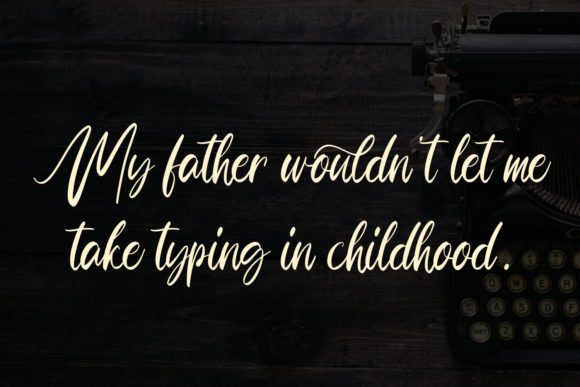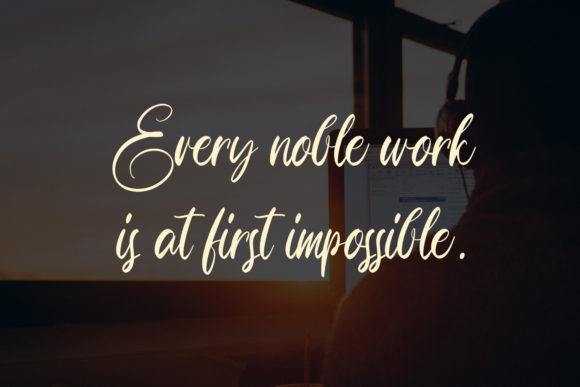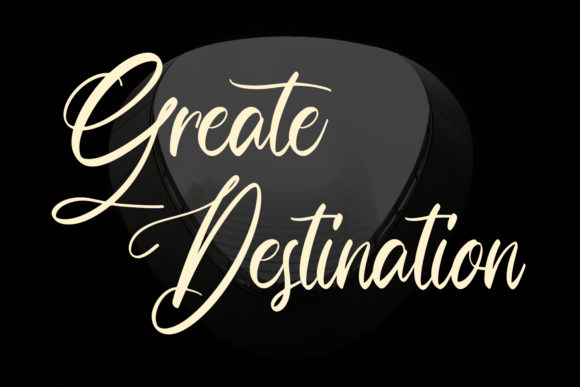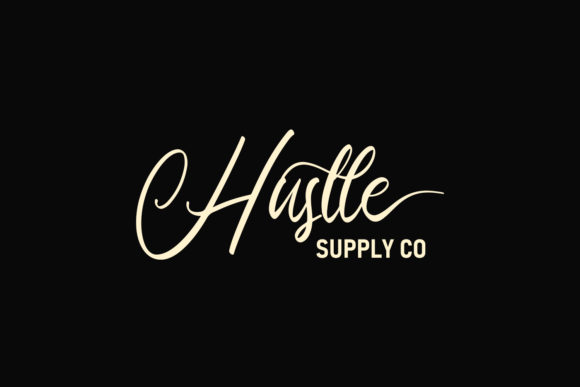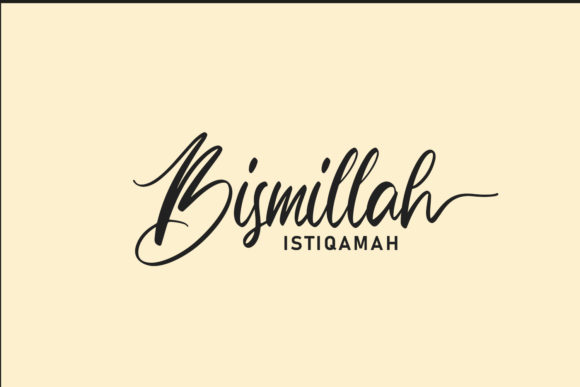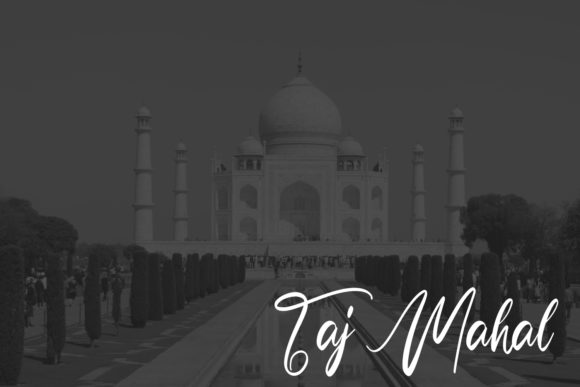
Discover the Charm of Anthropology Font: A Friendly and Versatile Handwritten Script
Are you a designer, crafter, or DIY enthusiast looking for a font that can add a touch of warmth and personality to your creative projects? Look no further than Anthropology Font, a beautiful and casual handwritten script that is sure to delight. With its incredibly friendly feel, gorgeous swashes, and ligatures, this font is perfect for a wide range of applications, from Instagram posts to calligraphy scripts and more.
What Makes Anthropology Font So Special?
Anthropology Font is a truly unique and versatile script that offers a range of features that set it apart from other fonts. Here are just a few of the things that make it so special:
- Incredibly Friendly Feel: From the first glance, it’s clear that Anthropology Font is a font that is designed to be approachable and warm. Its casual, handwritten style makes it perfect for projects where you want to convey a sense of friendliness and approachability.
- Gorgeous Swashes and Ligatures: One of the standout features of Anthropology Font is its beautiful swashes and ligatures. These elegant flourishes add a touch of sophistication and elegance to any project, making it perfect for designers and crafters who want to add a little extra something special to their work.
- Versatile and Adaptable: Whether you’re designing a social media post, a DIY project, or a professional marketing campaign, Anthropology Font is a versatile script that can adapt to any style or theme. Its flexibility makes it a great choice for a wide range of applications.
Anthropology Font is a dream come true for designers and crafters who are looking for a font that can help them add a personal touch to their projects. Here are just a few ways that this font can be used:
- Instagram and Social Media: With its friendly and approachable style, Anthropology Font is perfect for Instagram posts, Facebook updates, and other social media projects. Use it to add a personal touch to your social media presence and make your posts stand out.
- Calligraphy and Hand Lettering: If you’re a fan of calligraphy or hand lettering, Anthropology Font is a great choice. Its beautiful swashes and ligatures make it perfect for creating elegant and sophisticated lettering pieces.
- DIY Projects: Whether you’re making cards, gift tags, or other DIY projects, Anthropology Font is a great choice. Its friendly and approachable style makes it perfect for adding a personal touch to your handmade creations.
Tips for Using Anthropology Font
Here are a few tips for getting the most out of Anthropology Font:
- Experiment with Swashes and Ligatures: One of the best things about Anthropology Font is its gorgeous swashes and ligatures. Experiment with different combinations to find the look that works best for your project.
- Mix and Match with Other Fonts: Anthropology Font is a versatile script that can be paired with a wide range of other fonts. Try mixing and matching it with different fonts to create a unique and interesting look.
- Use it for Headlines and Titles: Anthropology Font is perfect for headlines and titles, where its elegant and sophisticated style can really shine.
In conclusion, Anthropology Font is a beautiful and versatile handwritten script that is perfect for designers, crafters, and DIY enthusiasts. With its incredibly friendly feel, gorgeous swashes and ligatures, and adaptable style, it’s a font that can be used for a wide range of applications. Whether you’re looking for a font for Instagram, calligraphy scripts, or DIY projects, Anthropology Font is a great choice. So why not give it a try and see what amazing creative projects you can come up with?